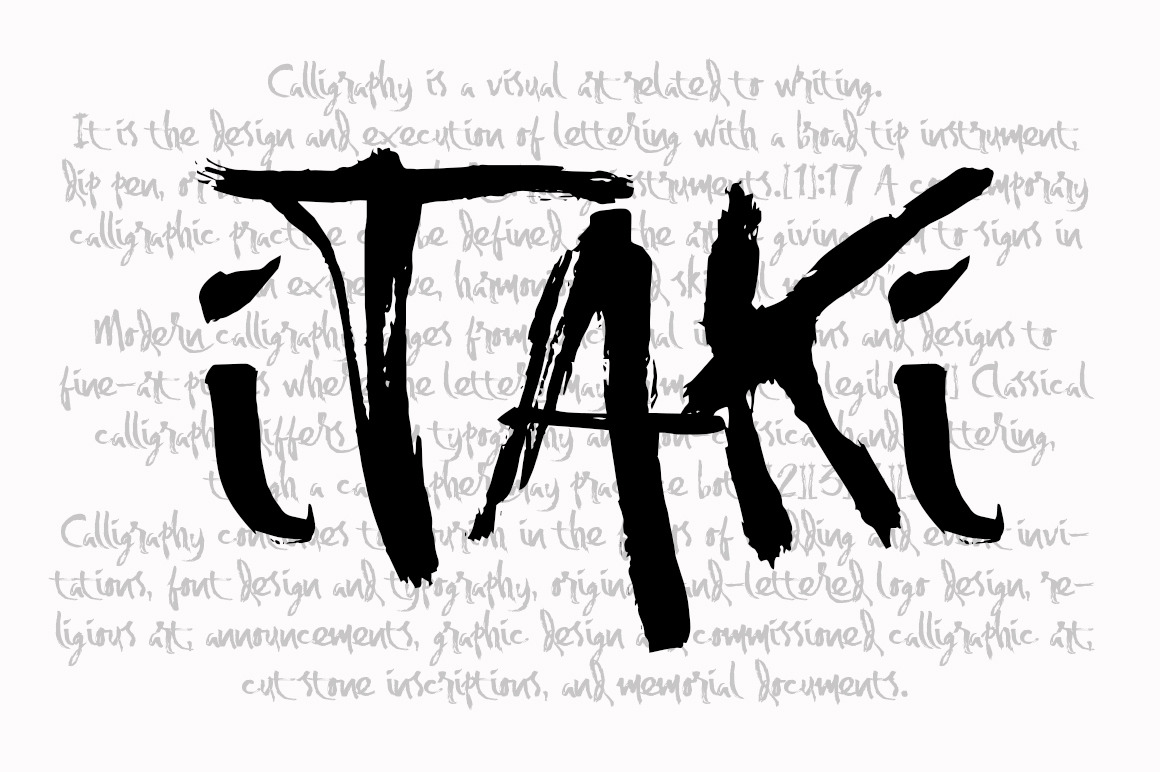
itaki - calligraphic typeface
itaki calligraphic typeface is a beautiful hand lettering script font. its really suite to design brand with deep meaning. itaki inspired by chinese calligraphic form which is greatly awesome curved. enjoy